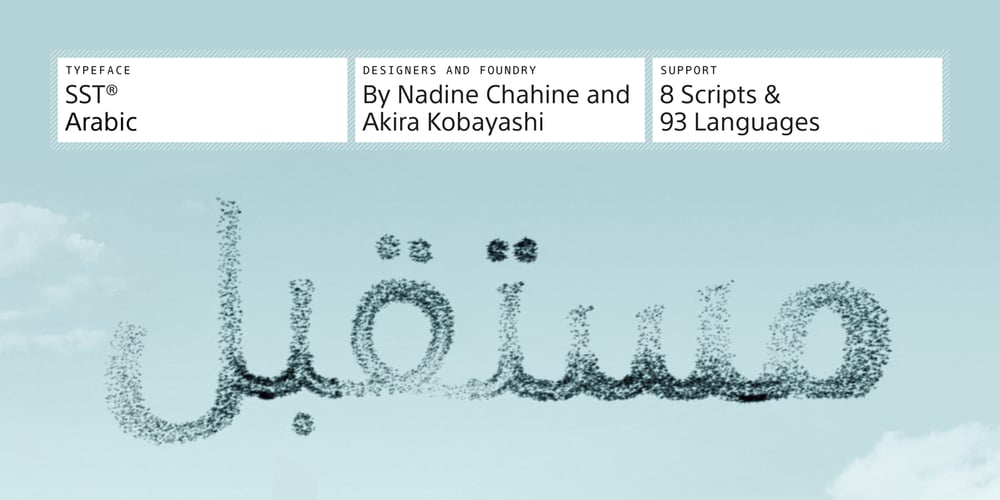
SST Arabic Font Family was designed by Akira Kobayashi, Nadine Chahine and published by Monotype. SST Arabic contains 4 styles and family package options. The SST® typeface is greater than the sum of its parts. It’s an exceptionally powerful suite of designs that spans applications with grace, and imaging environments with ease. Advertising, brochures, documentation, packaging, short and long form text copy, even wayfinding, in hard copy or digital media, are all within the SST typeface family’s range. Add to this, a character set supporting almost 100 languages, and you have a typographic juggernaut. The SST Arabic family has 4 fonts in total. It spans four weights from light to bold.